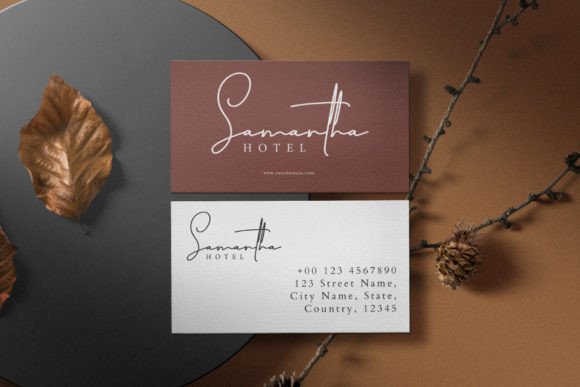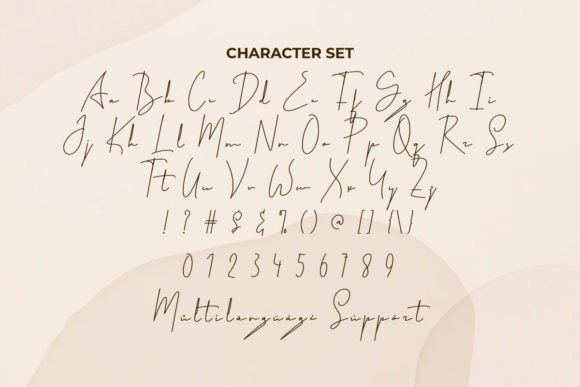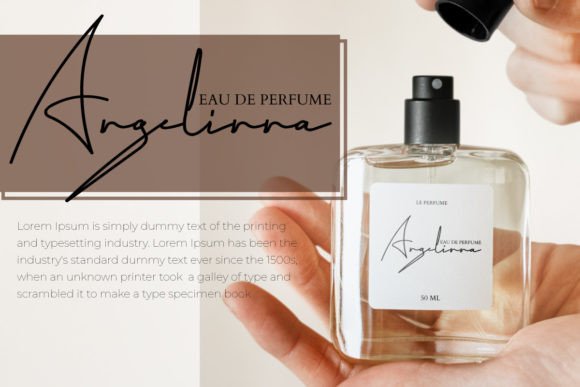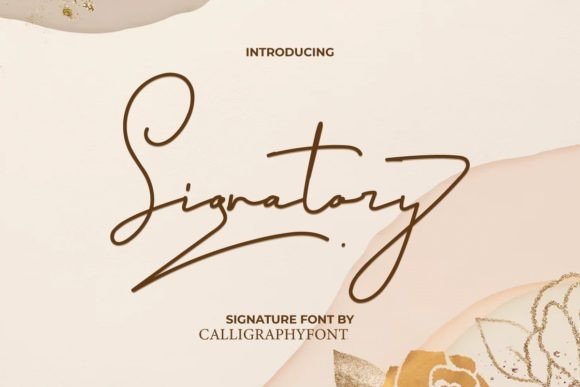
Introduction to Signatory Font
Signatory is a dazzling script font.
This font is neatly crafted and highly detailed Whatever the topic, this font will be a wonderful asset to your font library, as it has the potential to enhance any creation.